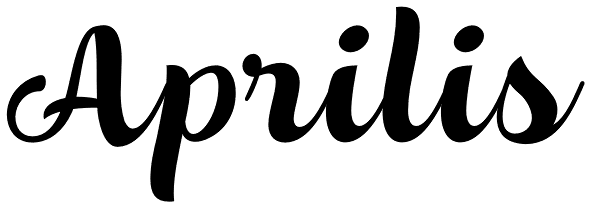
Aprilis
Are you looking for a new casual and organic script font? Please, take a look to the Aprilis! In times of early Roman calendar, "Aprilis" followed and preceded "Martius" "Maius" when spring came, was green nature and flowers burst into colours to...